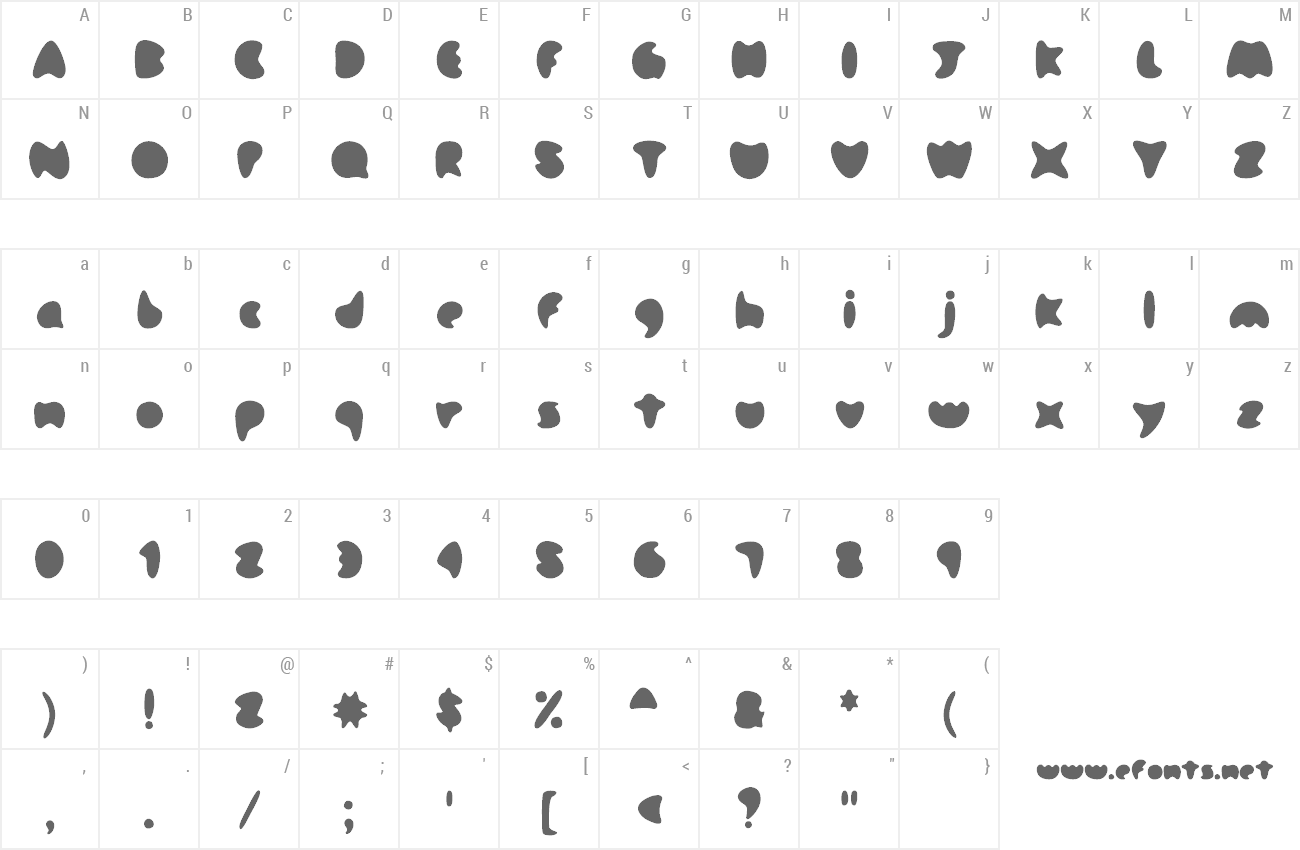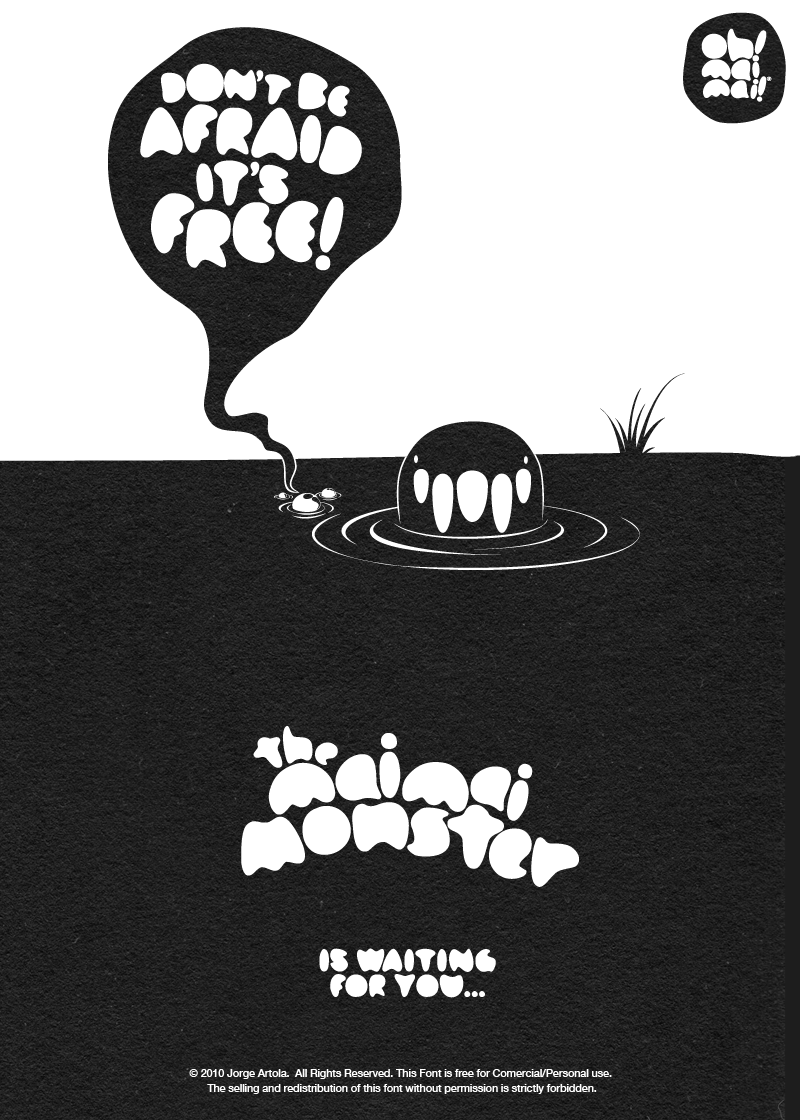
Oh! mai mai!® its a dangerous and cute typeface created by Jorge Artola. Inspired by the mai mai monster® it is fully equipped with numerals, accents, punctuation and special characters! It also includes a bonus wallpaper pack! so don’t be afraid... its free! Featured Project on the Behance Network http://www.ohmaimaifont.com |